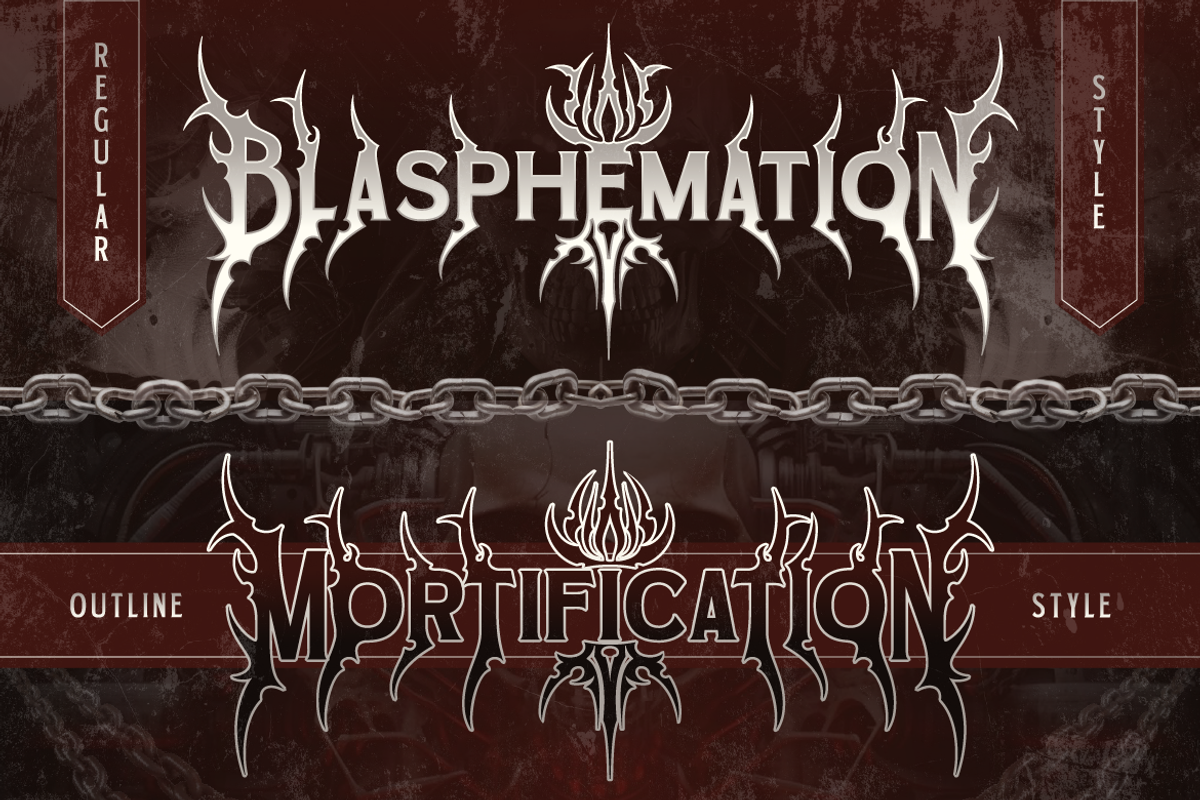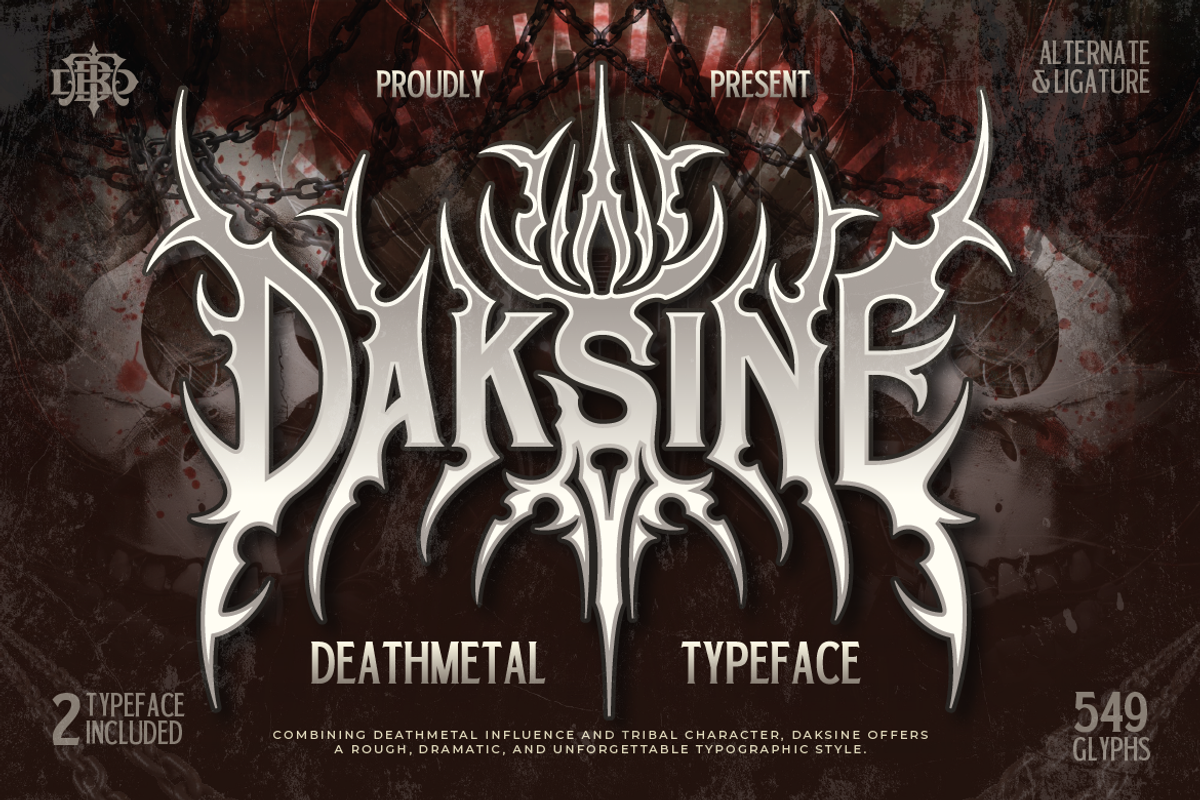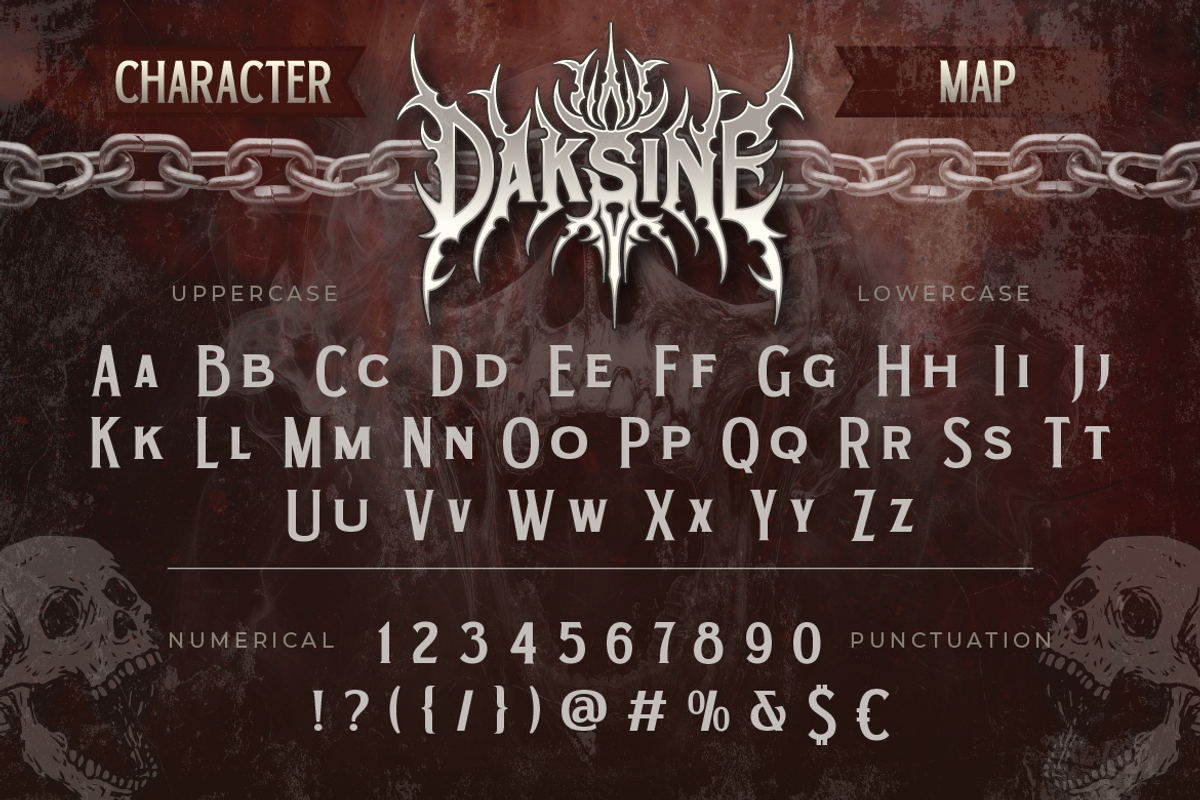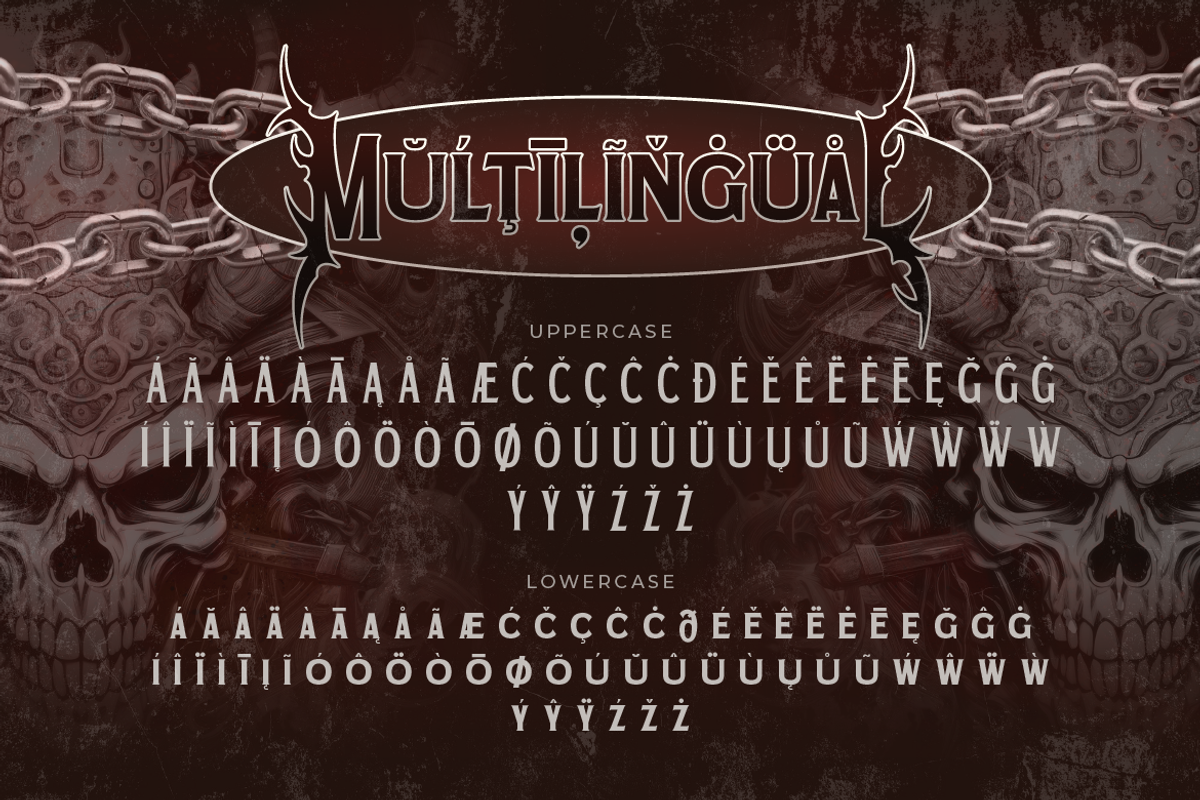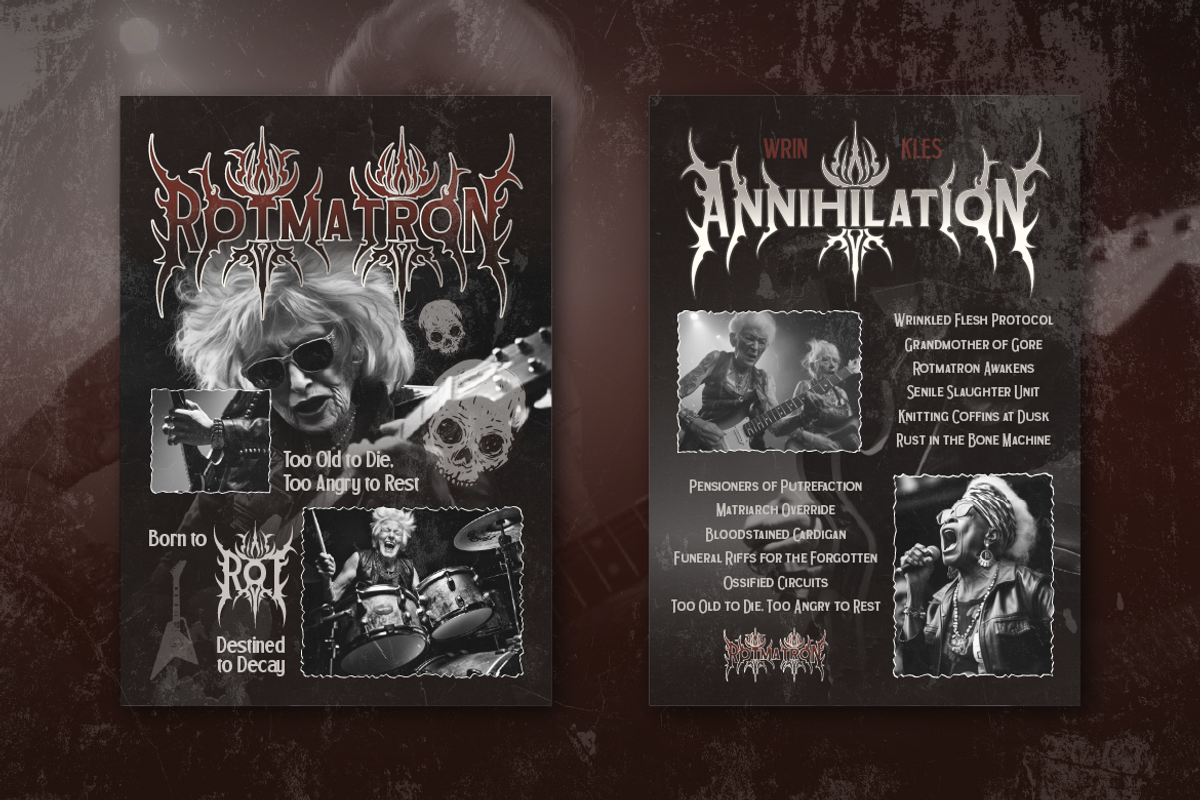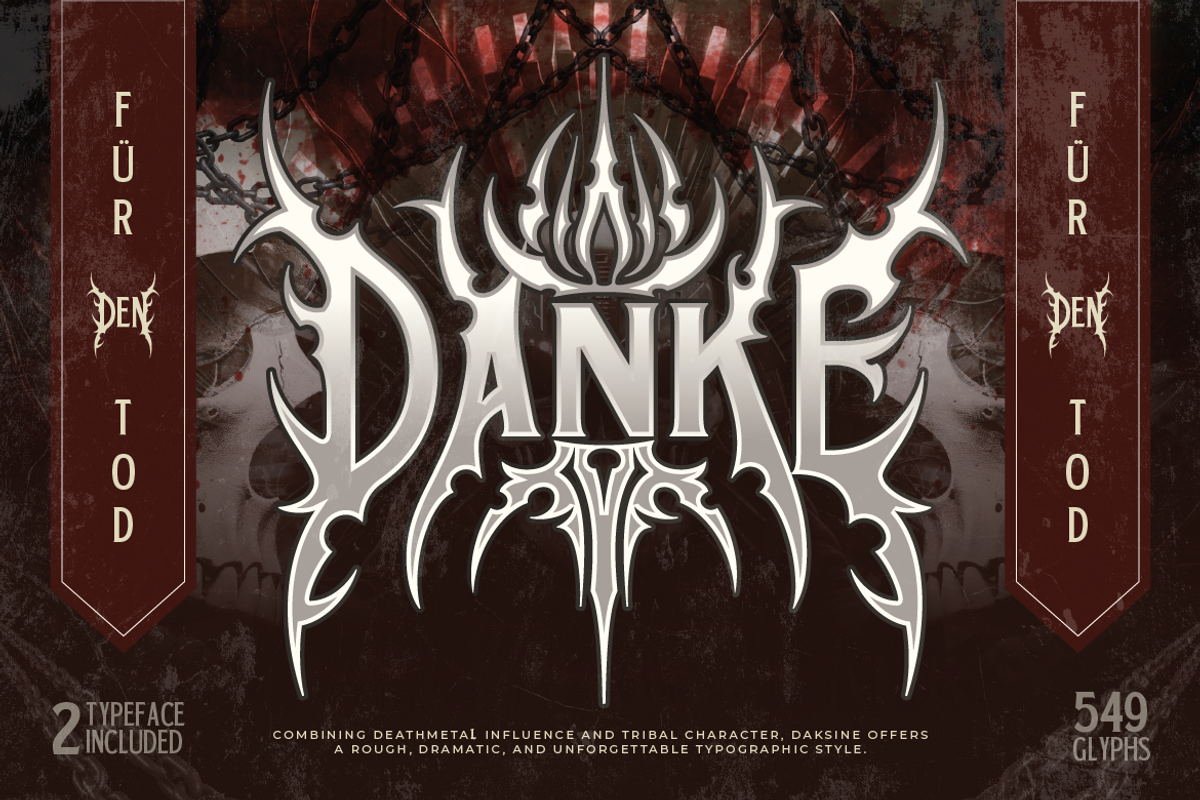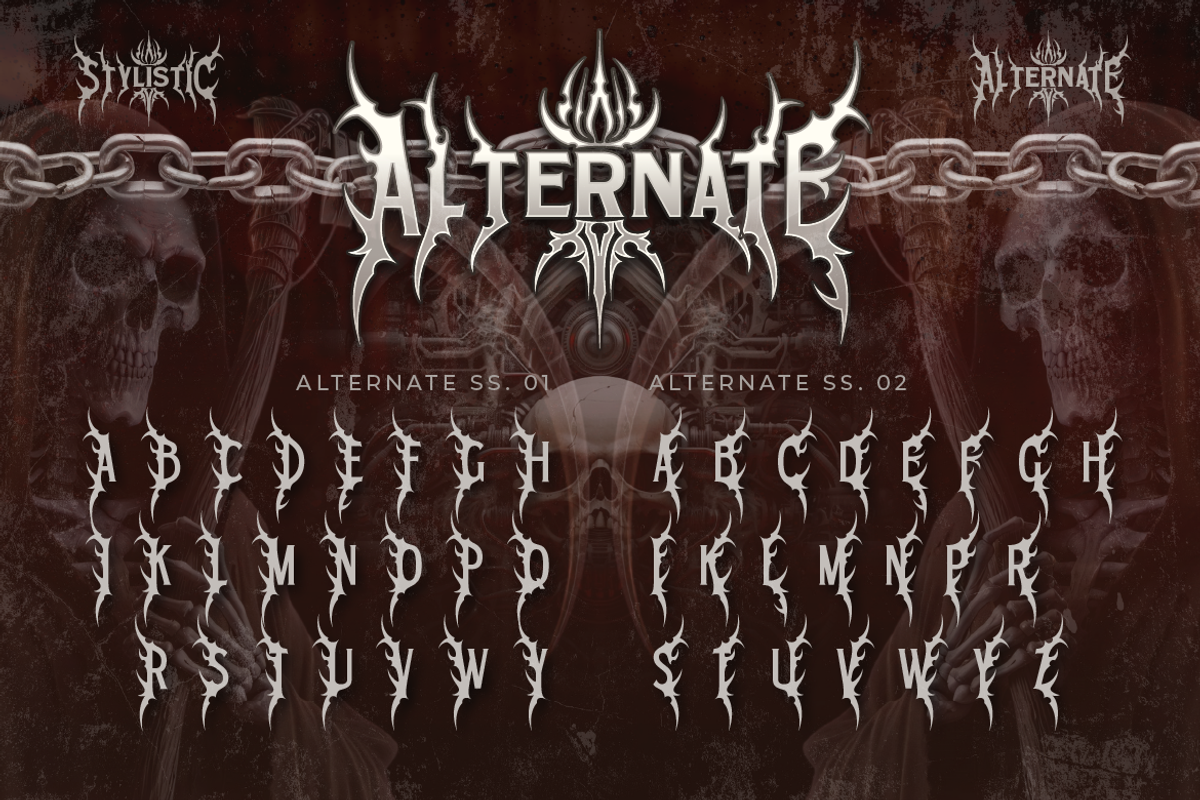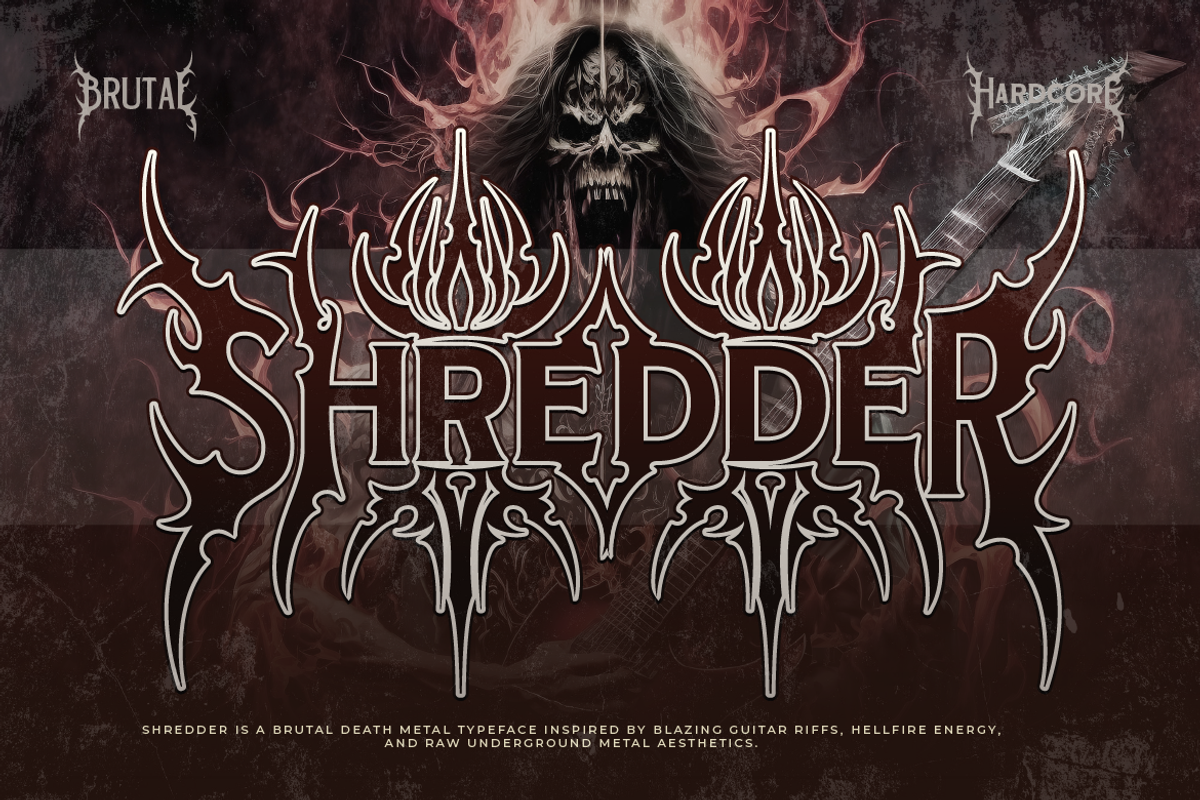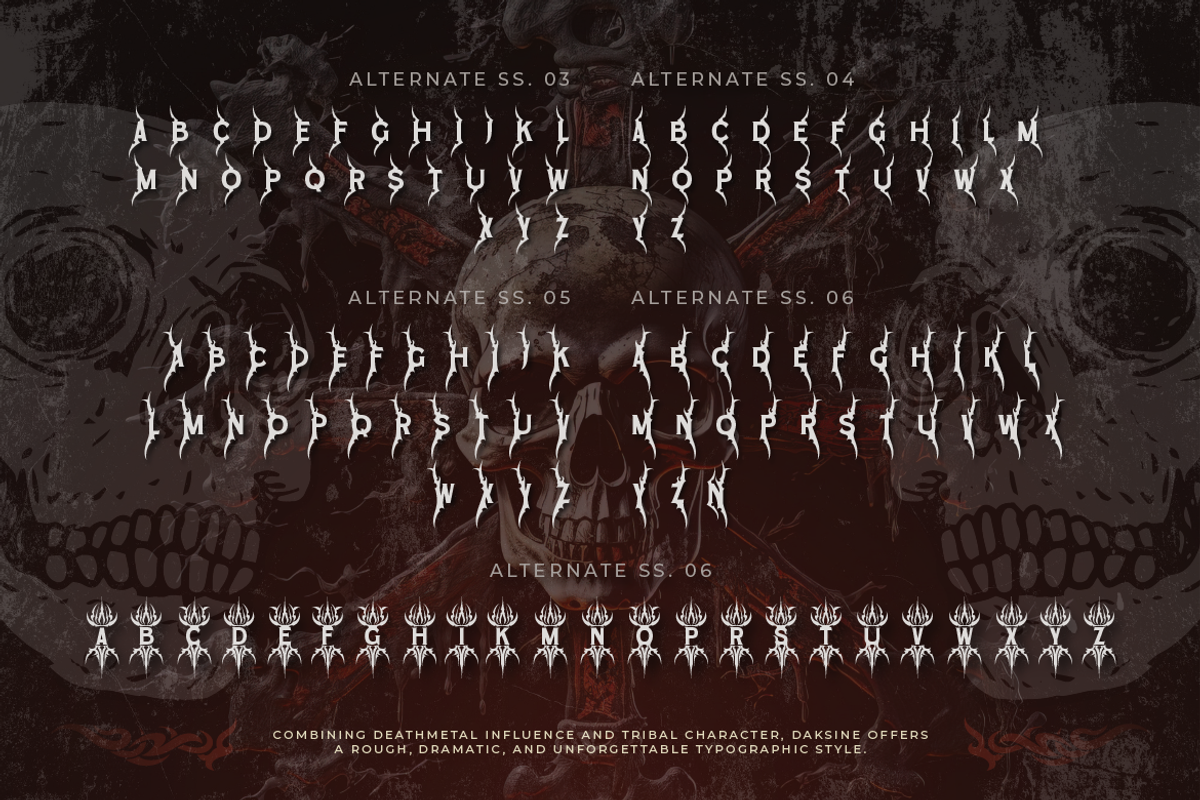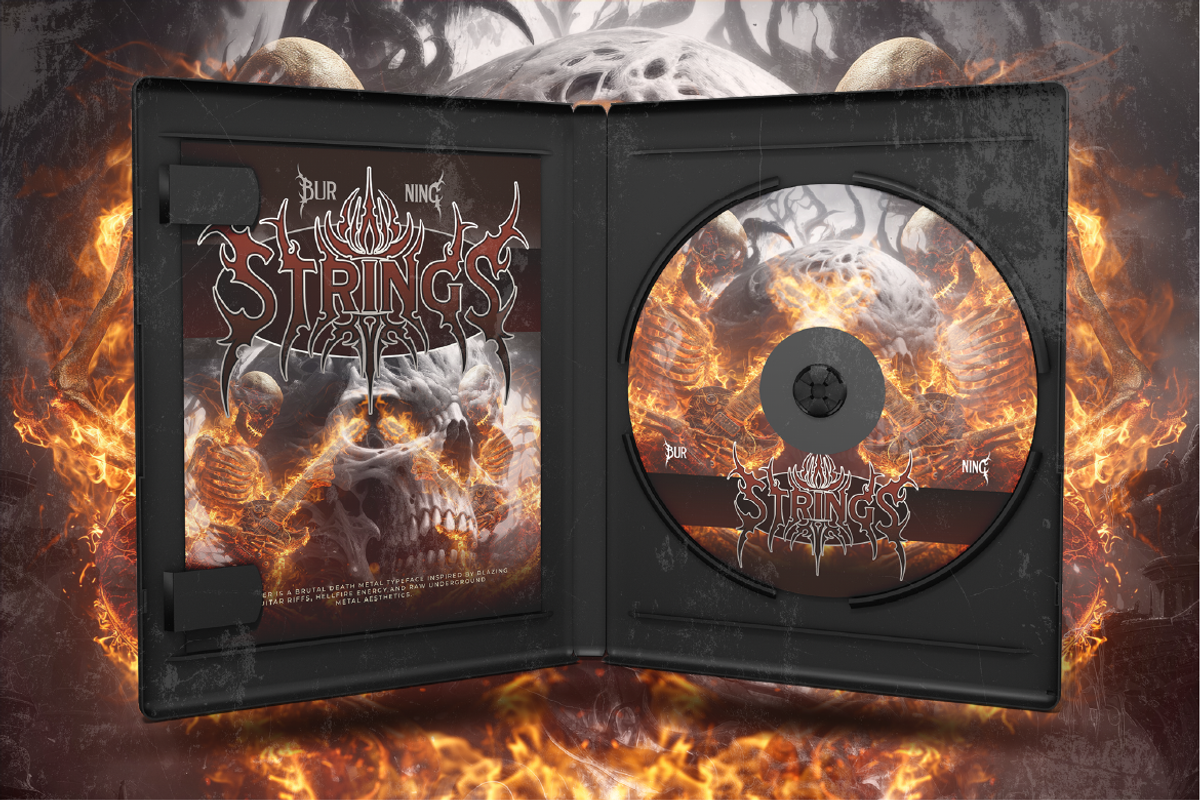
Daksine
Daksine is a bold and aggressive death metal typeface inspired by extreme music, dark art, and gothic aesthetics. The sharp spikes, dramatic curves, and intense details create a powerful and unforgettable look. This font is perfect for designs that need a dark, brutal, and high-impact style. Every letter is carefully crafted to give that raw underground metal feeling, but still readable and usable for modern design projects. Daksine comes with 2 styles: Regular and Outline With 549 glyphs included, this font supports uppercase, lowercase, numbers, punctuation, alternates, and ligatures — giving you more flexibility for creative typography.
Band logos
Album covers
Metal merchandise
Posters & flyers
Horror or gothic branding
Streetwear designs
Dark-themed packaging
Tattoo-inspired artwork
A - Z set (Uppercase & Lowercase All Caps)
Number
Daksine Characters Map